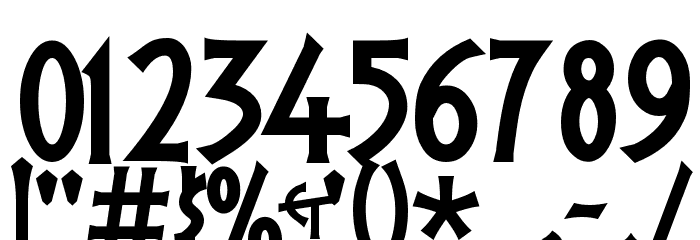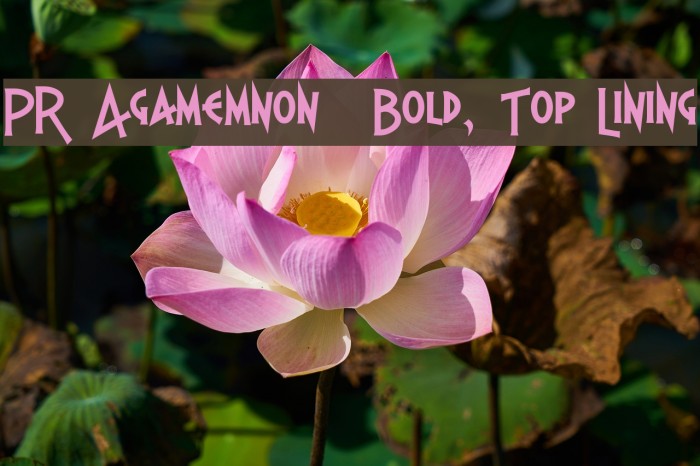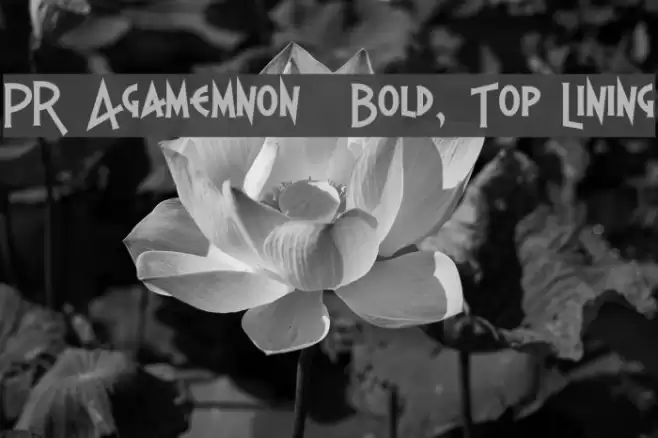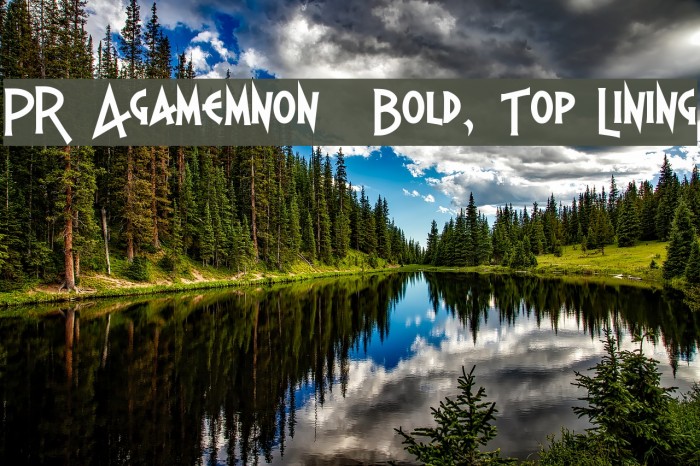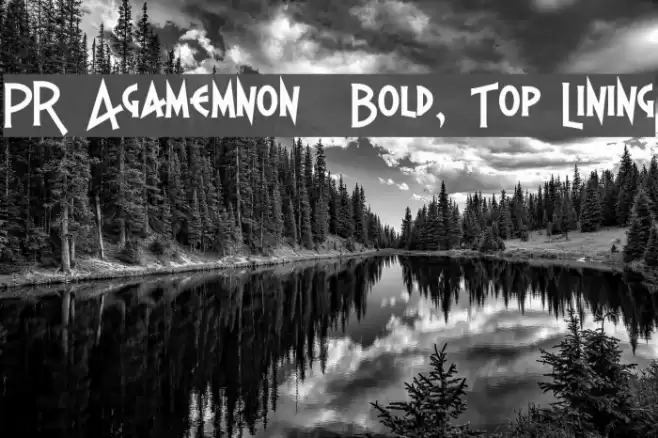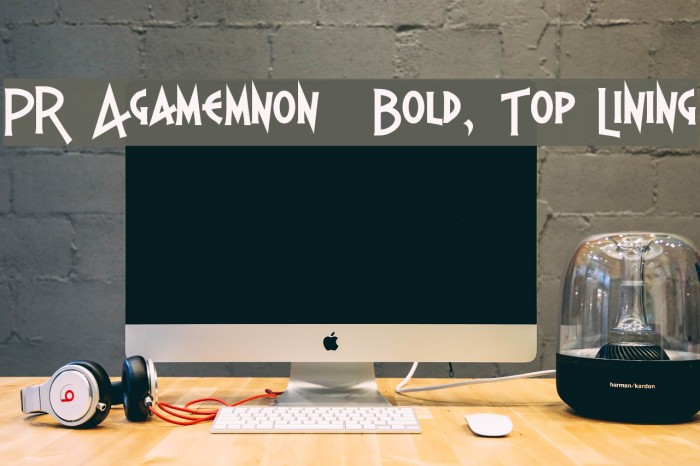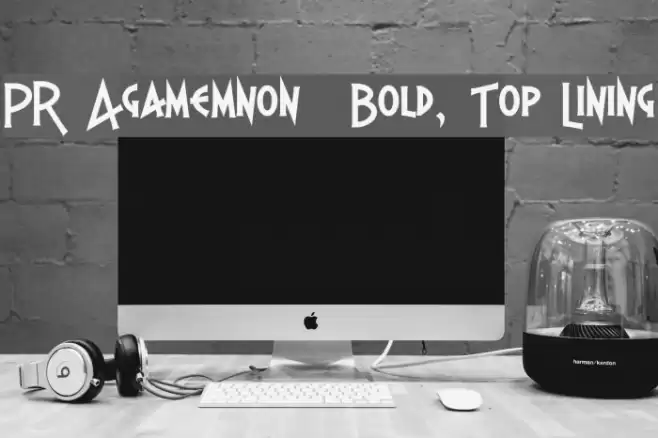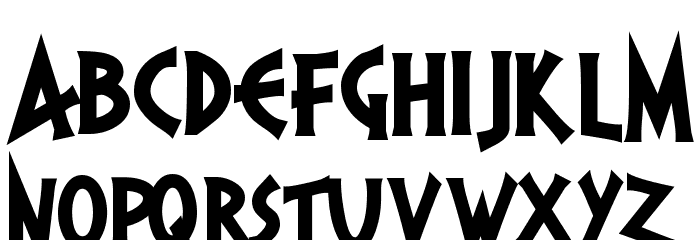
PR Agamemnon Bold, Top Lining Font
PR Agamemnon Bold, Top Lining Description
This font features a bold and dynamic style with sharp, angular lines and a distinct geometric flair. The uppercase letters are characterized by their pointed edges and varying stroke widths, creating a sense of movement and energy. The numerals and special characters maintain this bold aesthetic, ensuring consistency throughout. The font's unique design makes it stand out, with a modern yet slightly retro feel, suitable for eye-catching displays.
| Proposed Projects | Ideal for posters, logos, and branding materials that require a strong visual impact. |